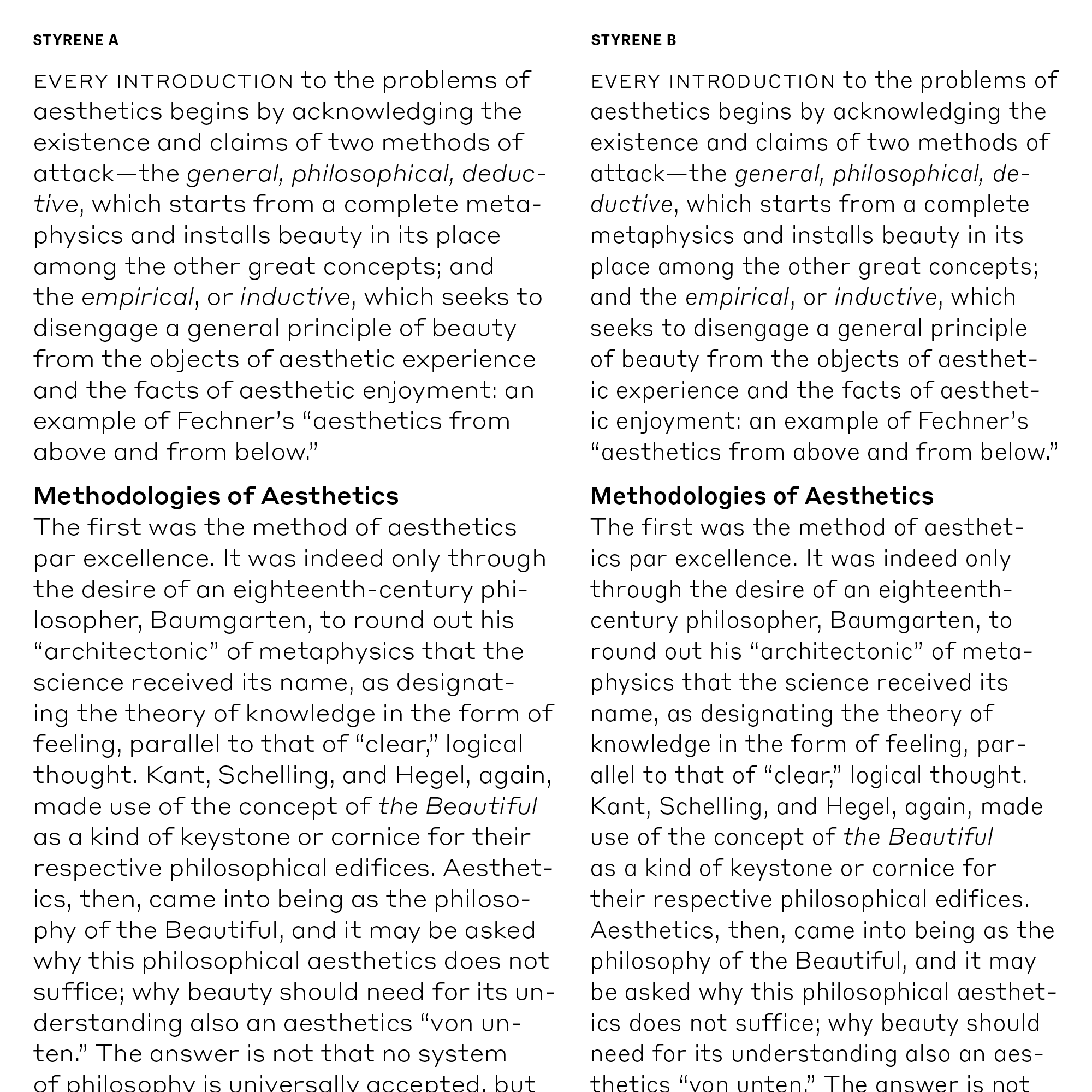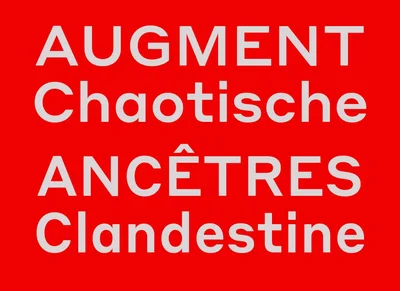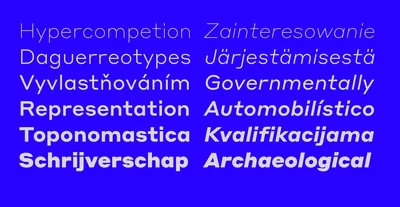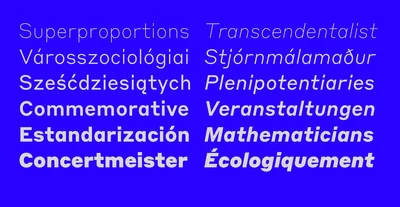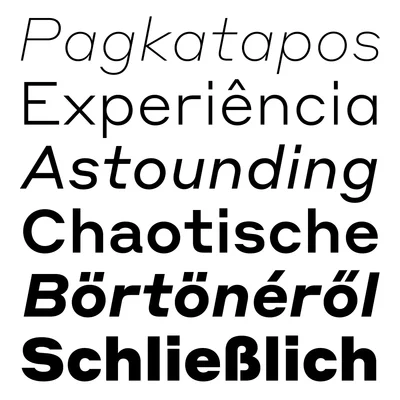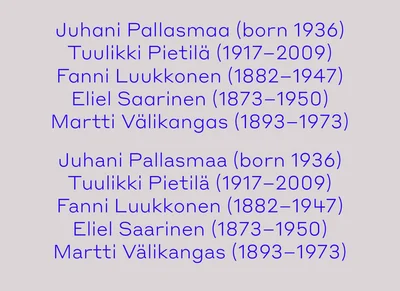
About Styrene
- Foundry
- Commercial Type
- Classification
- sans-serif
- Style
- geometric
Styrene is a geometric grotesque from Commercial Type, designed by Berton Hasebe. Available in two versions (A and B), it brings a synthetic, industrial character to the geometric sans tradition through hyperextended narrow letters and mechanical construction.
Design Characteristics
Styrene's two versions offer different flavors of the same geometric DNA: Styrene A is more conventional, while Styrene B takes the geometric concept further with exaggerated proportions. Both feature the distinctive mechanical warmth and industrial precision that define the family.
Where Styrene Excels
- Tech branding: Startup identities, product launches, developer marketing
- Editorial: Magazine covers, feature headlines, art direction
- Poster design: Exhibition graphics, concert posters, event branding
- Packaging: Cosmetics, tech products, premium consumer goods
What's the difference between Styrene A and Styrene B?
Styrene A is the more conventional version suitable for text and display. Styrene B pushes the geometric concept further with more exaggerated proportions, better suited for display-only use.